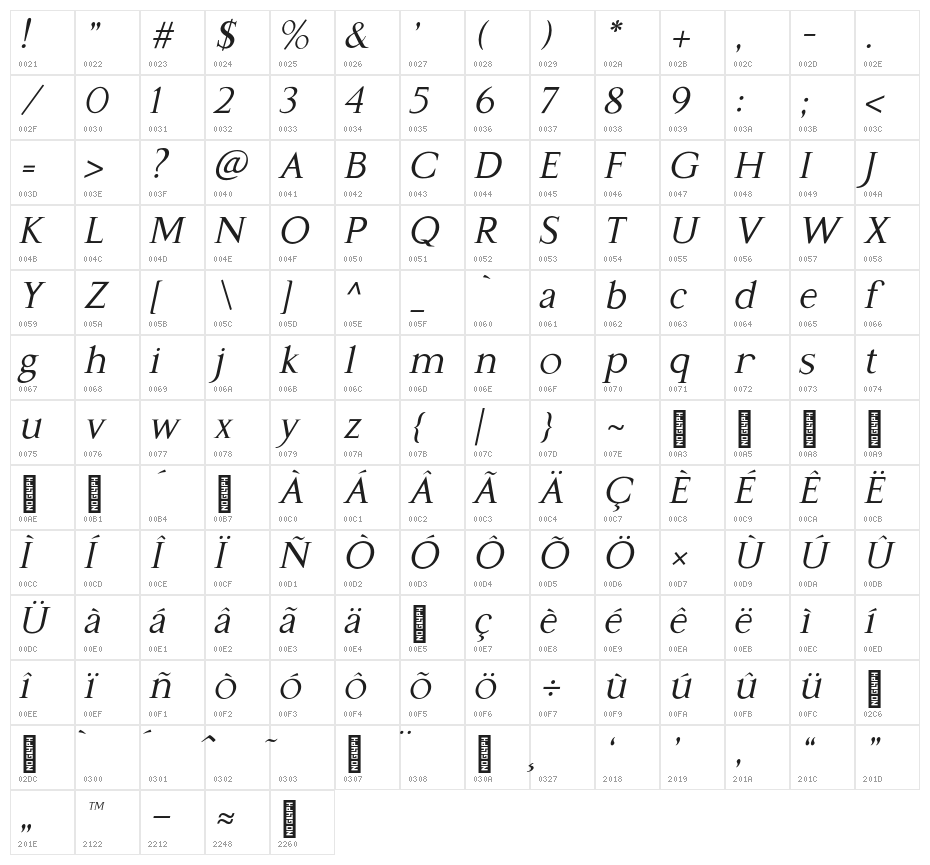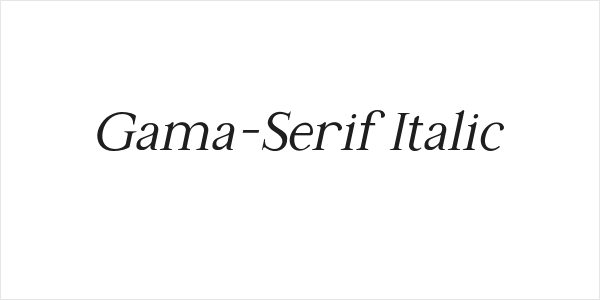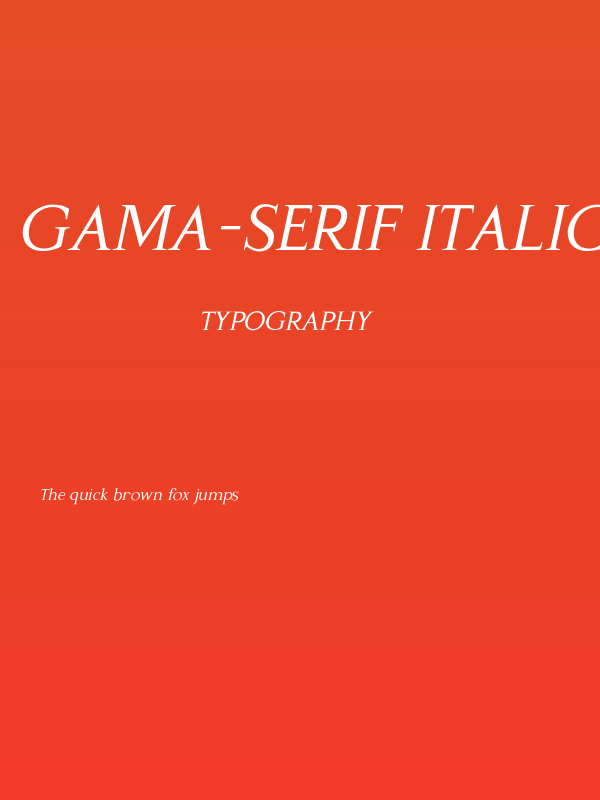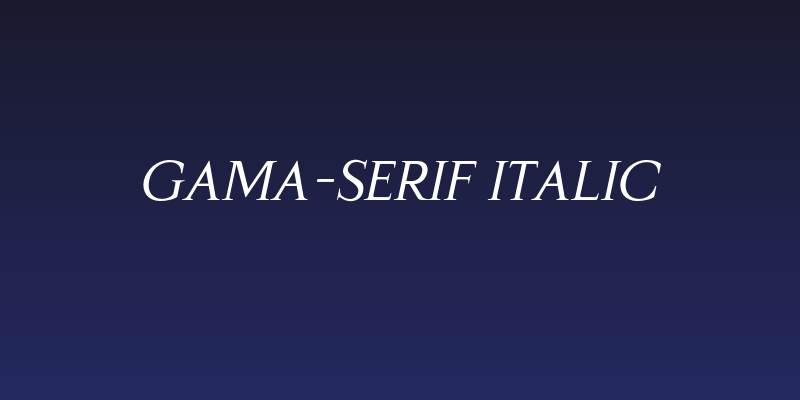
This elegant serif font features a classic italic style, characterized by its smooth, flowing lines and refined curves. The uppercase letters are well-proportioned, with a slight slant that adds a touch of sophistication. The lowercase letters maintain a consistent style, with gentle curves and a harmonious balance. Numbers are clear and distinct, with a slight italic tilt that complements the overall design. Special characters are thoughtfully crafted, maintaining the font's elegant aesthetic. This font exudes a timeless charm, making it suitable for a variety of applications.
| Proposed Projects | Ideal for use in elegant invitations, formal documents, book covers, and branding materials that require a touch of sophistication. |